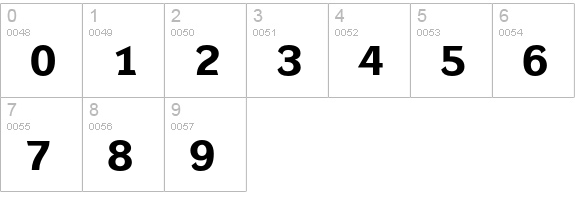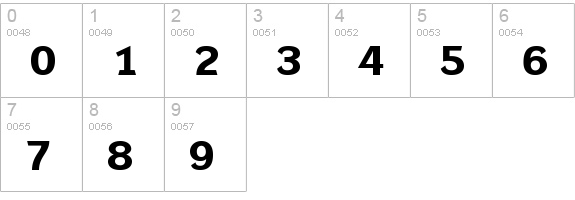
Dynamo H X E is a modern and stylish font that exudes energy and sophistication. With its bold lettering and sleek design, this font is perfect for making a statement in any project. Its unique characteristics make it stand out from the crowd and add a touch of dynamism to your designs. Best of all, Dynamo H X E is completely free to download at FontsMarket.com. Whether you're a designer looking to add some flair to your work or a creative looking for a fresh new font to play with, Dynamo H X E is the perfect choice. Don't miss out on the opportunity to enhance your projects with this eye-catching and versatile font - download Dynamo H X E today!